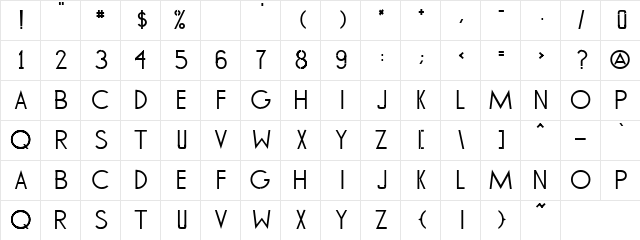
Complete TOMMY HILFIGER AF Regular glyph index. Displaying only characters natively supported by TOMMY HILFIGER AF Regular font.
TOMMY HILFIGER AF is a composed and adaptable typeface that performs quietly and consistently across a wide range of design contexts.